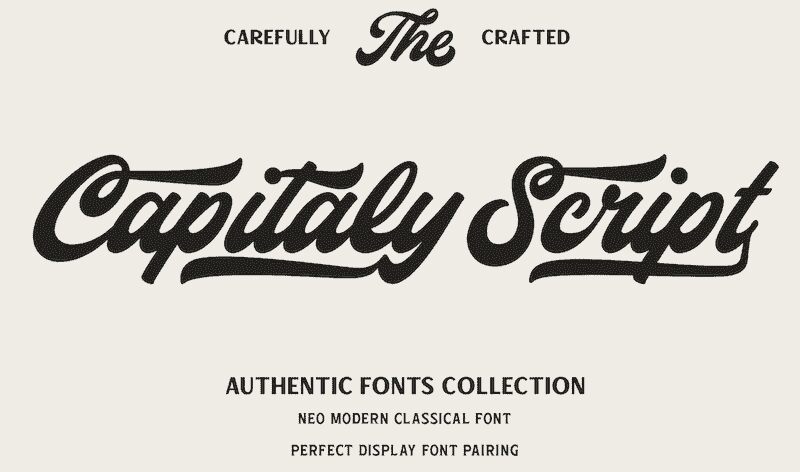
The Capitaly Script font by Mans Greback is a bold, narrow retro calligraphy font that adds a vintage touch to any project. Perfect for crafting logos, branding, and posters with a nostalgic feel.
Use asterisk * after a letter to make a swash letter.
Example: Ber*lin
Use _ or # or after any word to make a swash tail.
Example: Cursive Letters_
Use multiple _ # after any word to make swashes of different length.
Example: Decorate______